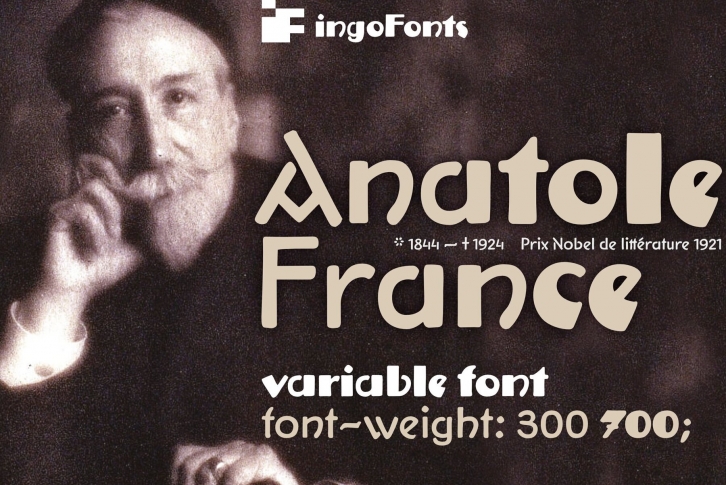
A semi-bold, decorative poster type in the style of Art Déco.
A few fonts already exist which have been drawn in accordance with the exact same principles. But these are just drawn - only drawn. The ANATOLE FRANCE retains the hand script character in spite of its stringent composition.
An old portfolio of script patterns from the 1920s or 1930s includes among its pages one with a handwritten poster script, as was very typical for the 1920s.
To begin with, there is the emphasized decorative character, which stands out due to stressing the stems. Next, the attempt to portray the character forms with the help of a few but always recurring basic elements is driven to the limits. Theoretically speaking, that which should have led to a contrived, geometrically determined type, obtains a likeable and pleasant look through the ductus of the manually guided brush.
ingoFont Anatole France goes best with illustrations.